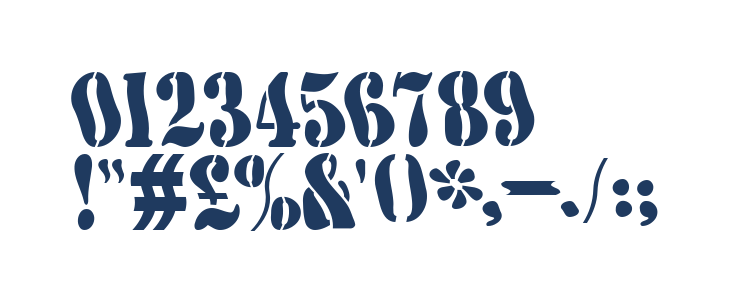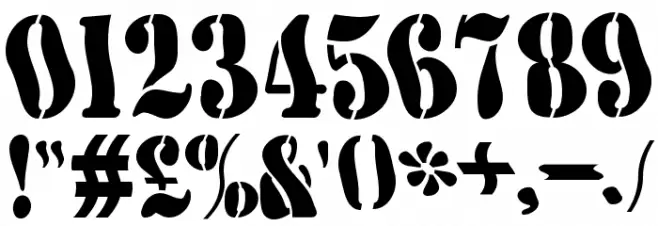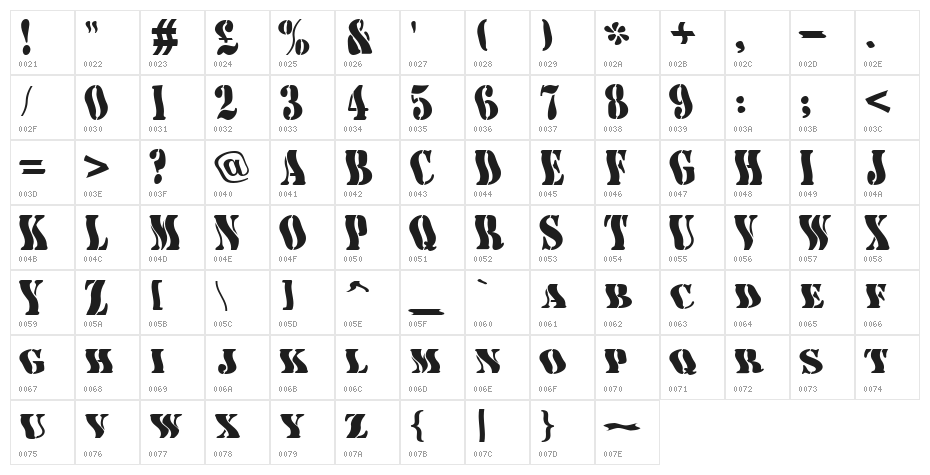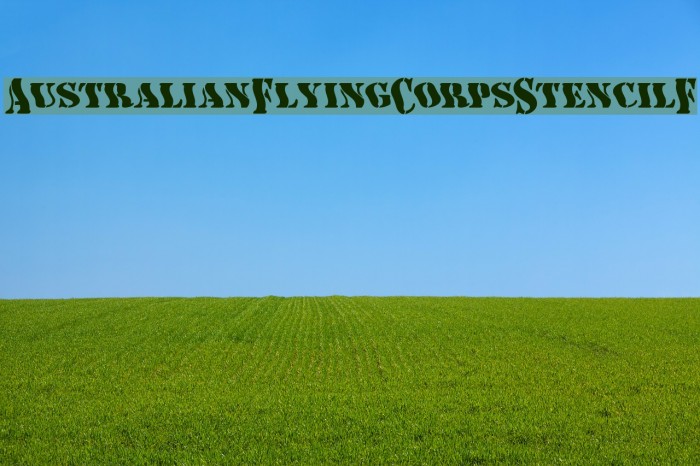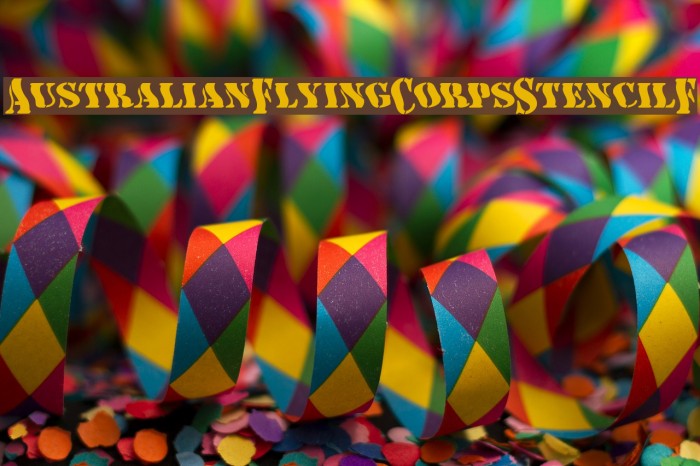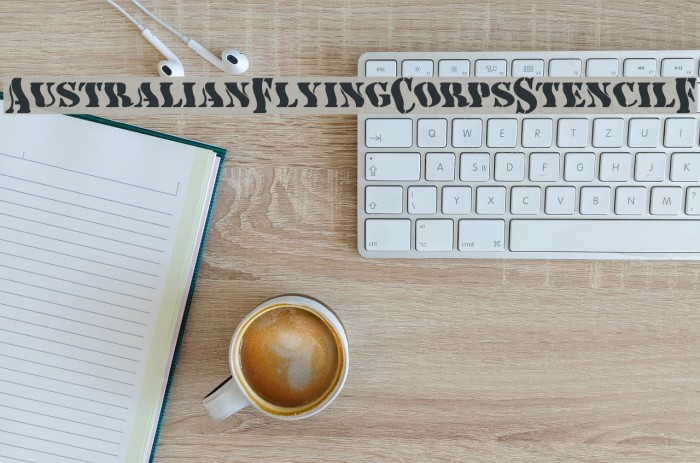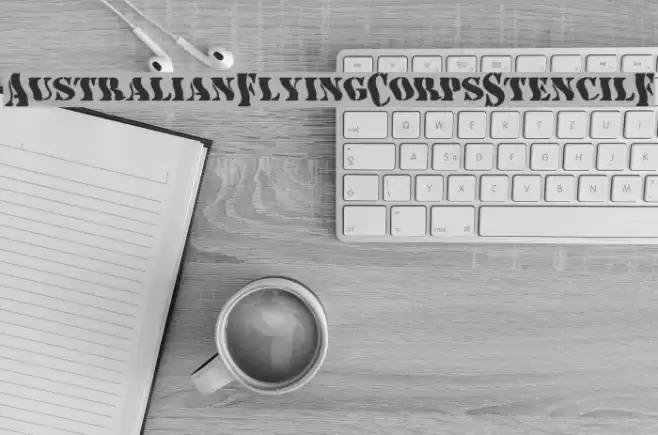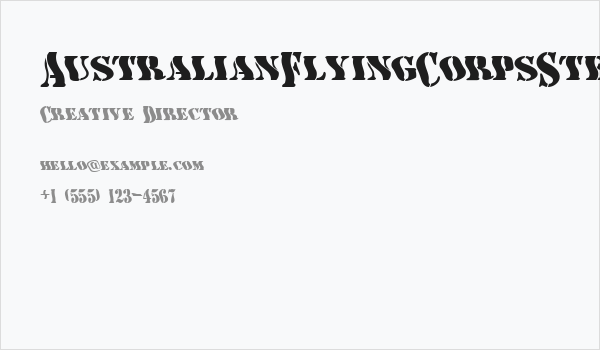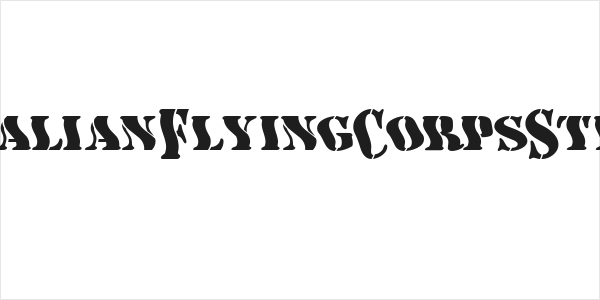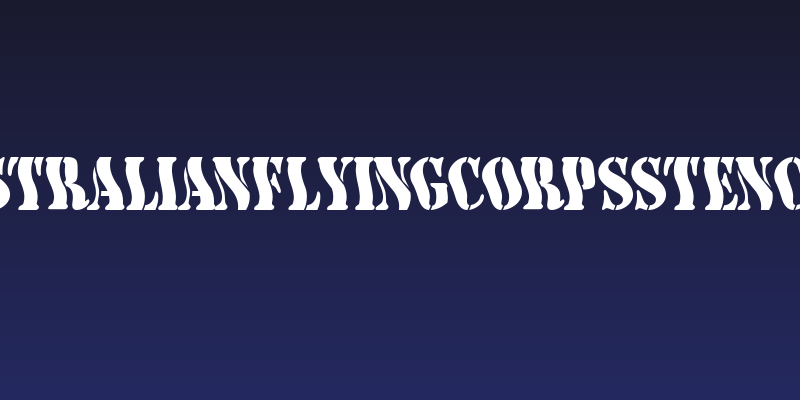
AustralianFlyingCorpsStencilF Font
AustralianFlyingCorpsStencilF Description
This font features a bold, stencil-like design with distinct cutouts that give it a rugged and utilitarian appearance. The characters are uniformly bold, with sharp angles and clean lines, reminiscent of military or industrial stencils. The uppercase and lowercase letters maintain a consistent style, with the cutouts providing a unique visual break in each character. The numerals and special characters follow the same design principles, ensuring a cohesive look across all glyphs. This font's boldness and distinctive style make it ideal for impactful and attention-grabbing designs.
| Overall Style | Industrial, Military |
| Proposed Projects | Ideal for military-themed designs, industrial branding, posters, and signage. |